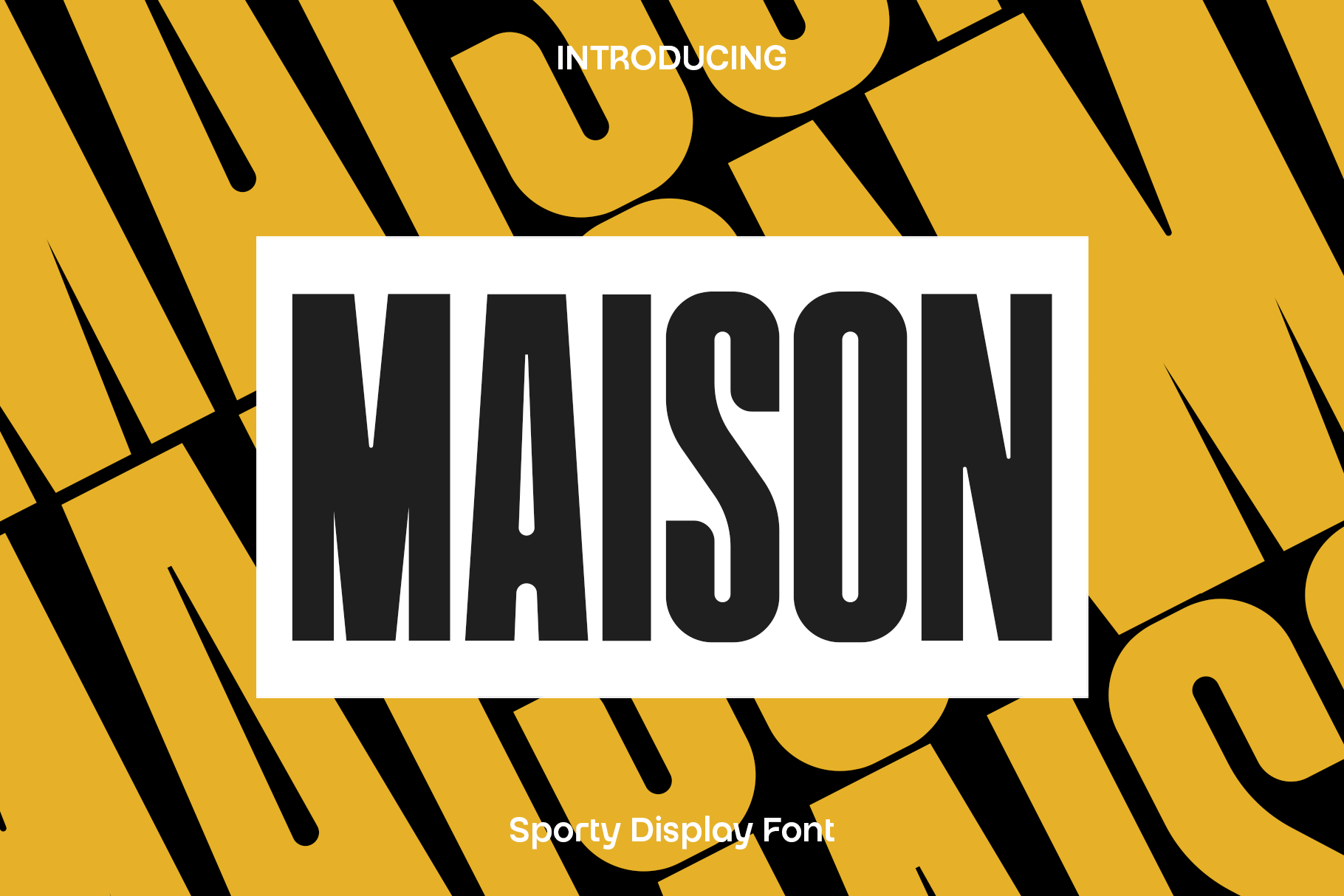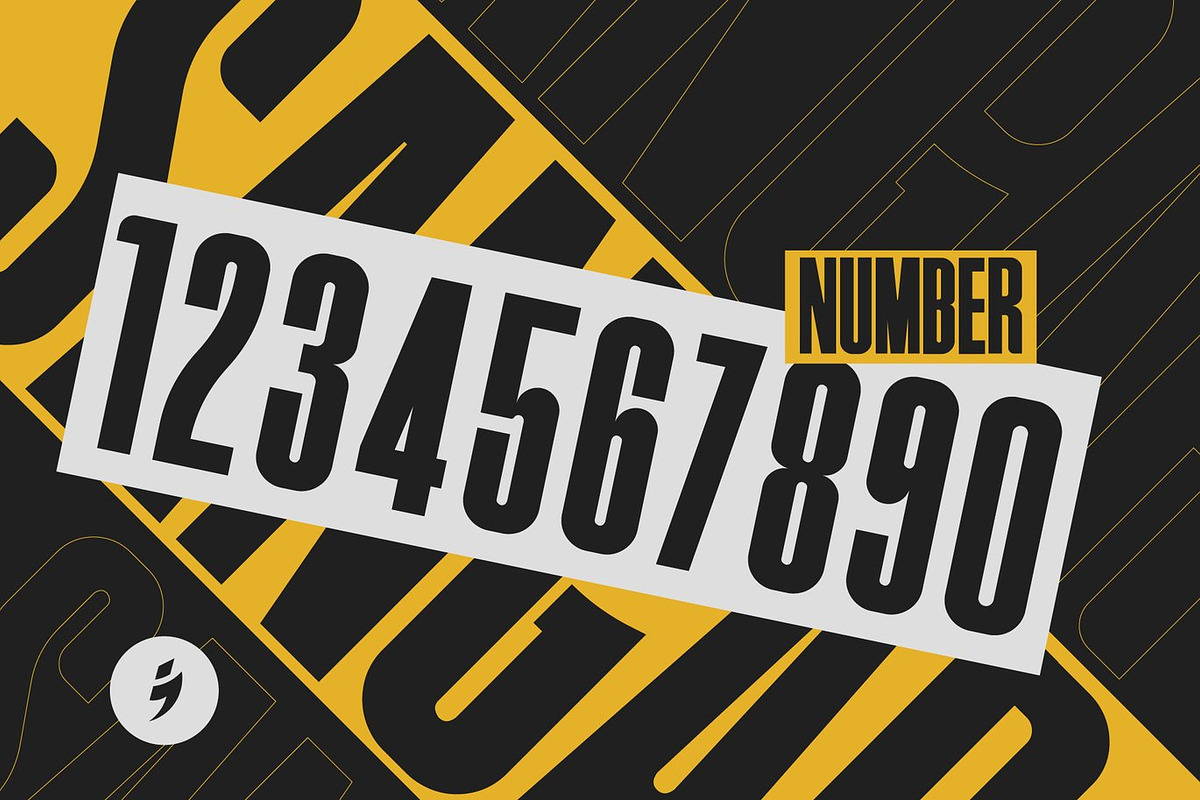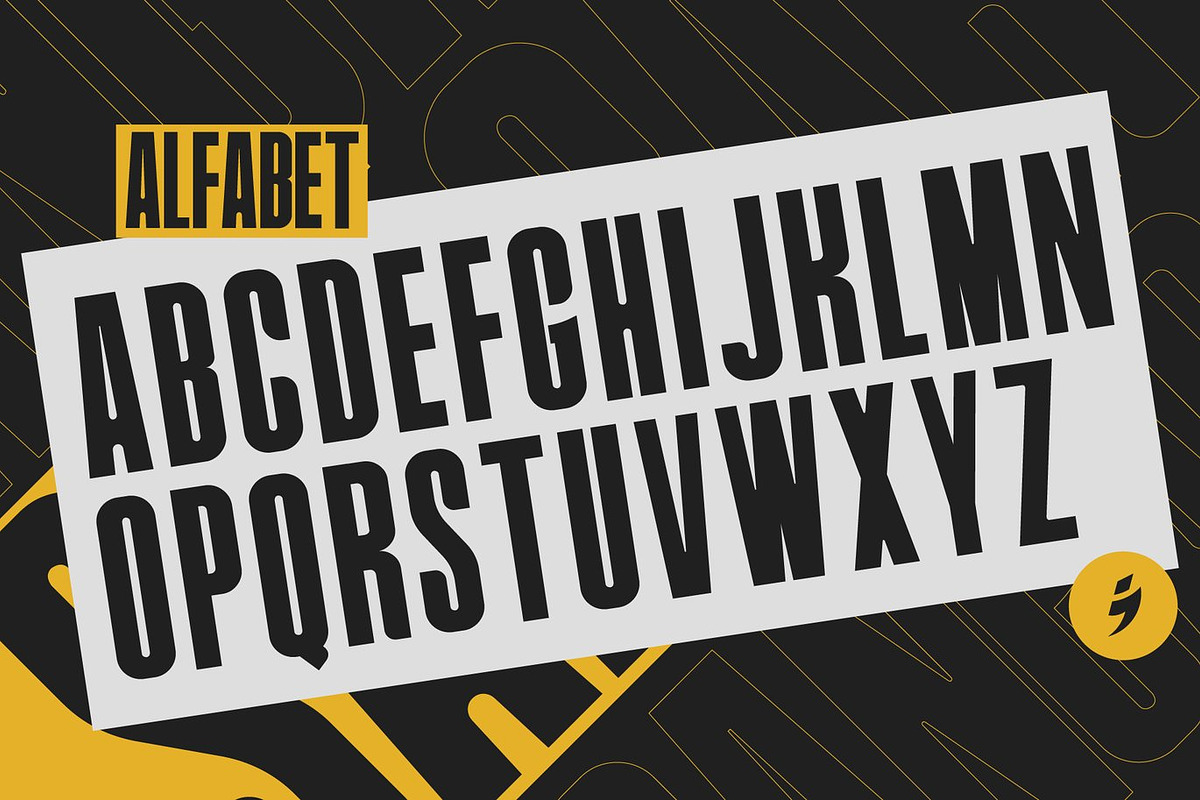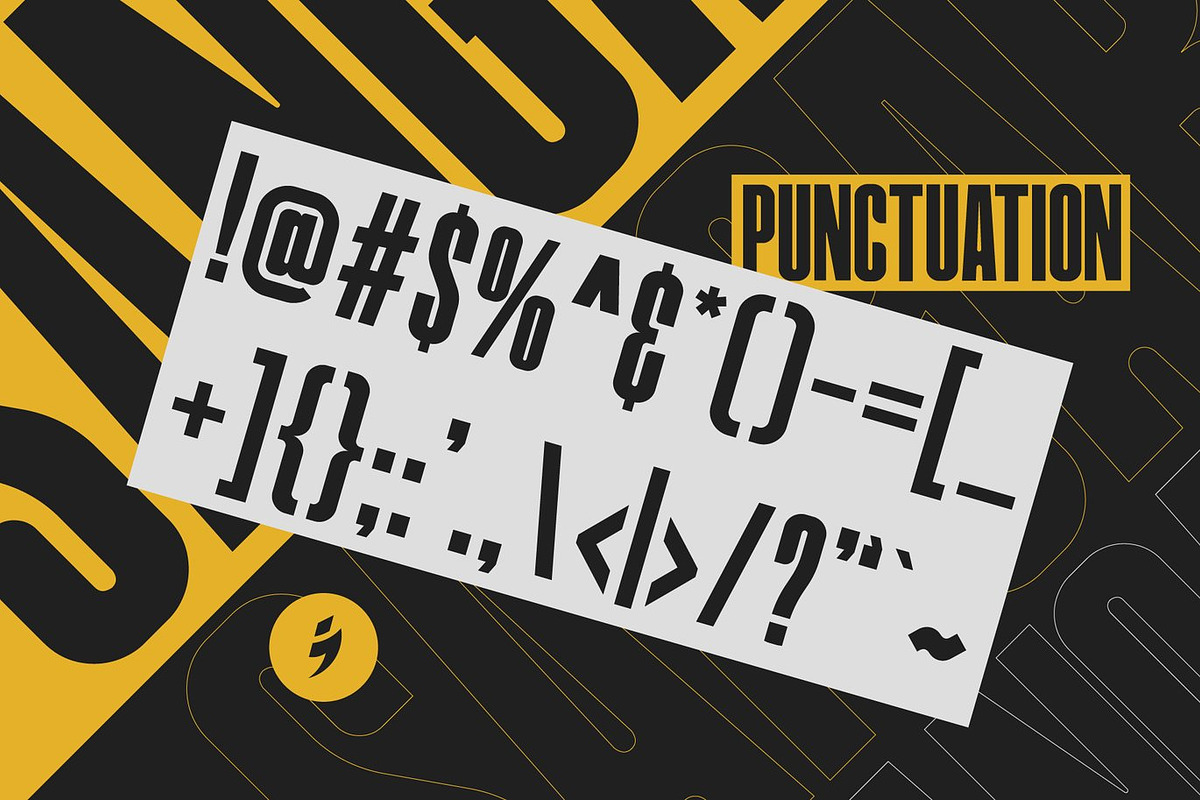
Maison - Sporty Display Font
Maison is a powerful sports display font designed to deliver speed, strength, and modern athletic energy into your creative projects. Featuring wide italic letterforms, sharp modern cutouts, and a bold dynamic slant, Maison creates typography that feels aggressive, fast paced, and highly impactful. Inspired by professional sports branding and contemporary action driven design, this font is built to command attention from the very first glance.
Perfect for football match graphics, esports branding, sports titles, gaming visuals, team logos, monograms, posters, apparel, and promotional campaigns, Maison brings a bold competitive spirit to every layout. Its wide structure and carefully balanced proportions provide excellent readability while maintaining a strong visual presence that works beautifully across both digital and print media.
Maison was created for designers who want typography that feels energetic, modern, and unforgettable. The angled shapes and modern cutout details create a sense of motion and power, helping your designs communicate confidence and intensity. Whether used for bold headlines or custom logo identities, Maison transforms ordinary text into a striking sports inspired visual statement.
Its versatile athletic style makes Maison ideal for modern branding projects that demand impact, movement, and professional quality. From sports tournaments to gaming content, this font delivers a powerful aesthetic that instantly elevates your creative work.
Maison Font Features:
• Wide italic sports letterforms
• Modern cutout design details
• Dynamic and powerful visual style
• Uppercase and lowercase characters
• Numerals and punctuation
• Excellent readability for titles and branding
• Perfect for sports, football, gaming, and esports projects
• Suitable for print and digital applications